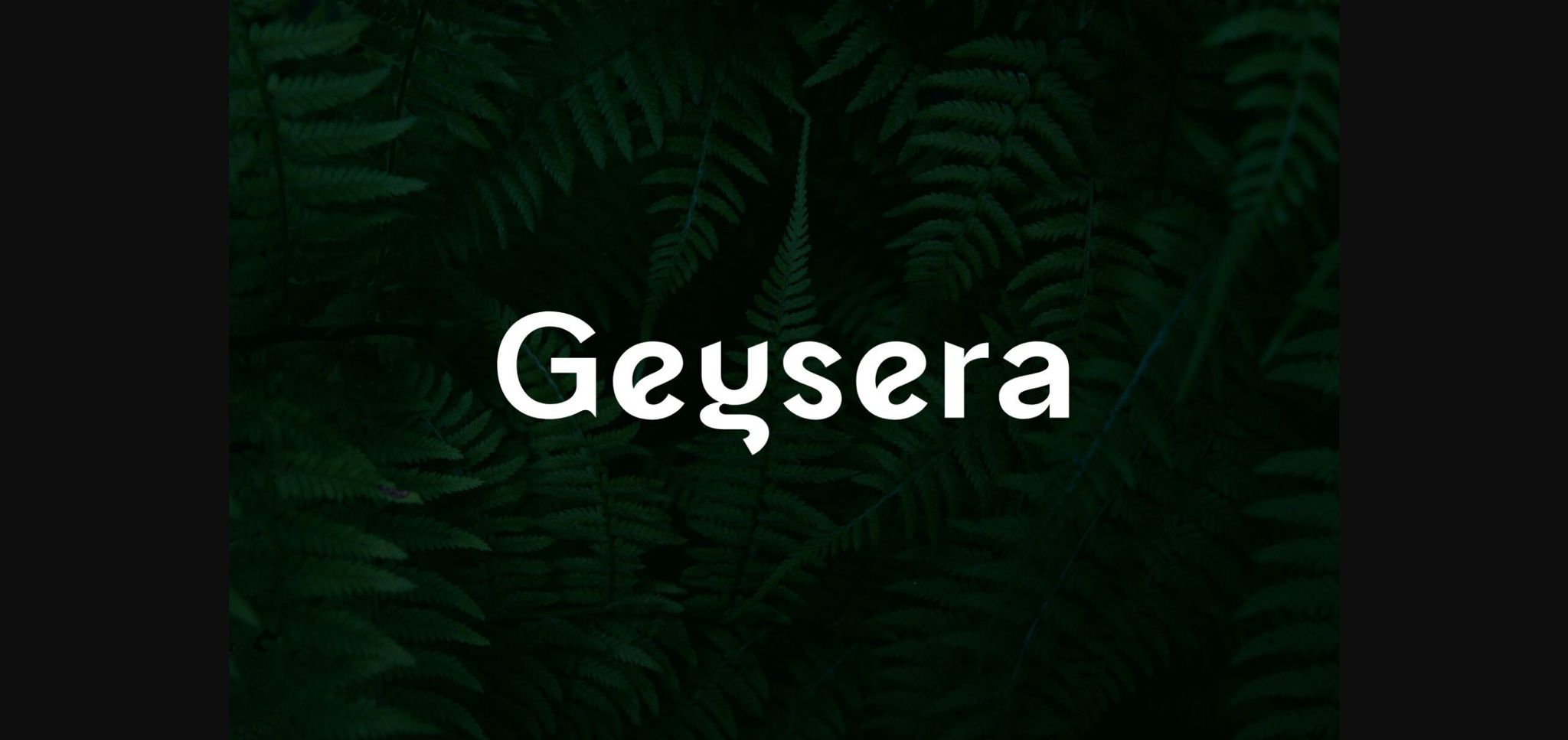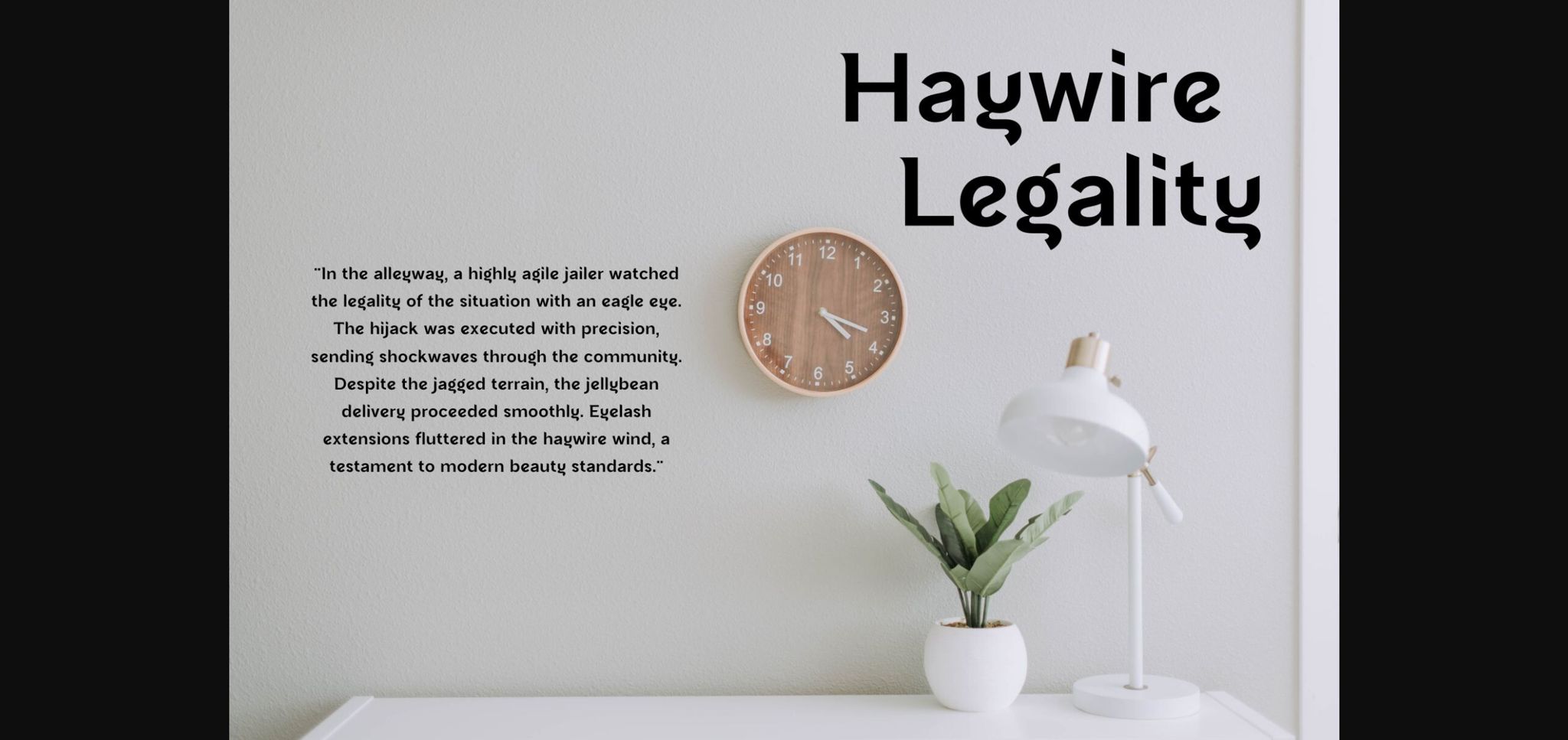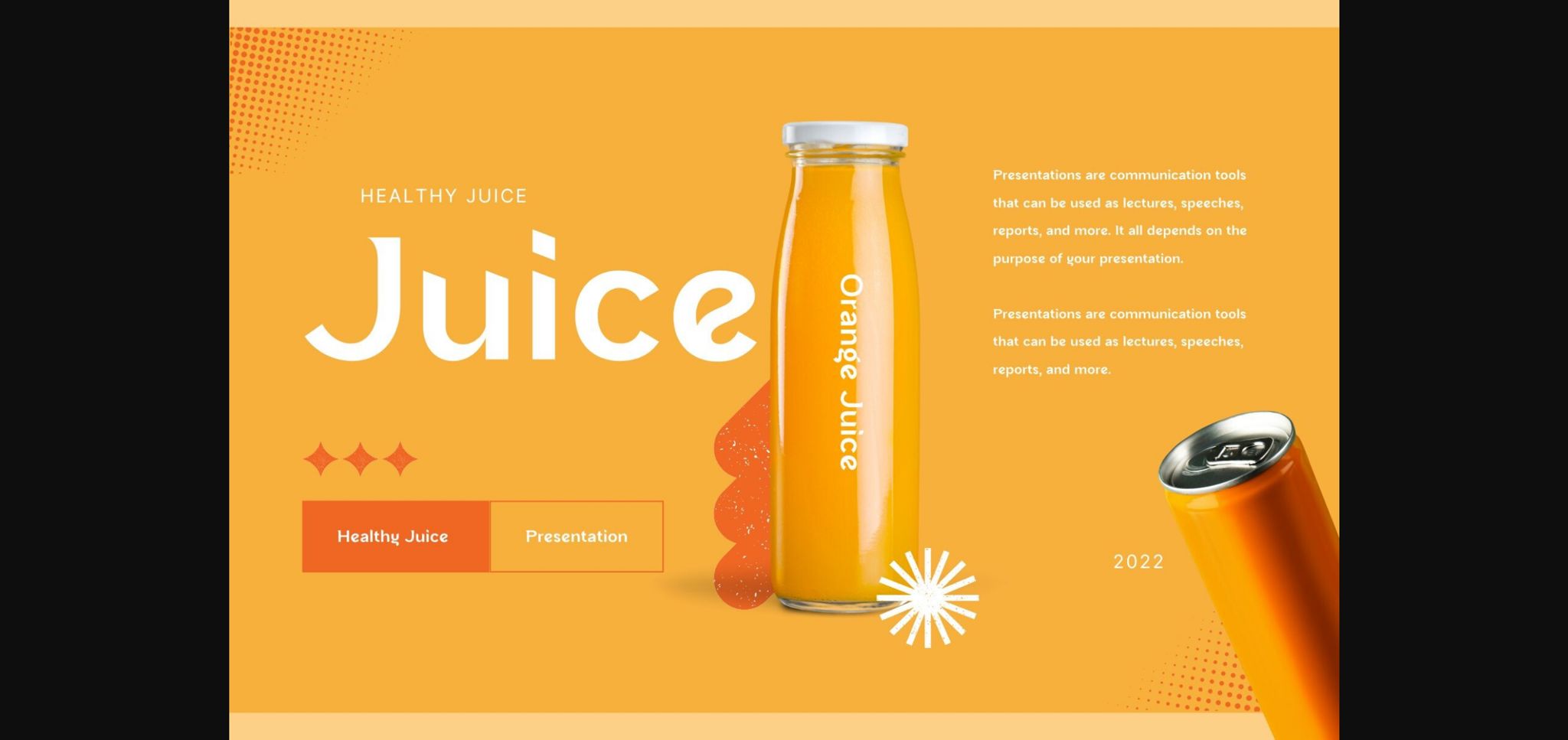
About Geysera Font
Introducing Geysera, a font designed to bring a touch of class and modernity to your projects. With clean lines and a sleek appearance, Geysera adds a sense of sophistication to any design.